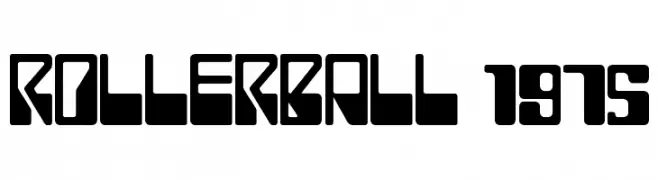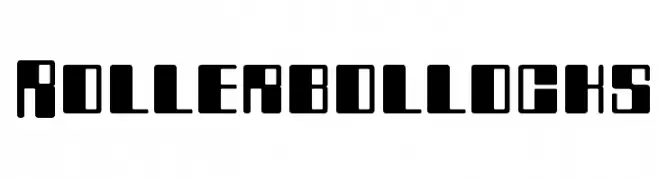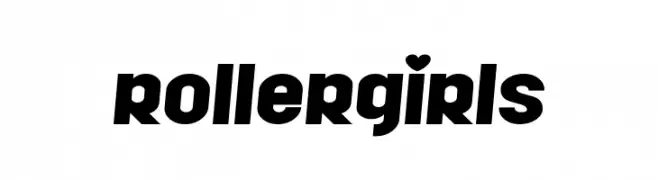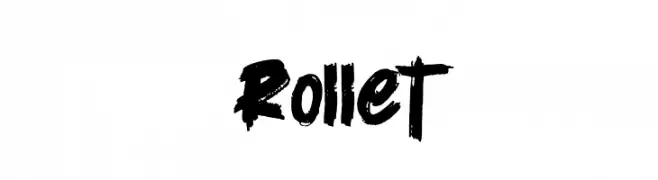
A bold, geometric font with a futuristic and modern design.
A modern, elegant script font with flowing, cursive characters.
A bold, angular font with a vintage yet modern appeal.
A bold, modern font with rounded, condensed characters and a playful style.
A modern, geometric font with sleek, continuous lines and a minimalistic style.
A bold, hand-painted style font with thick, uneven strokes and a dynamic feel.
A bold, expressive brush-style font with textured, hand-painted strokes.
A dynamic and expressive script font with fluid, cursive strokes.
A dynamic, flowing script font with elegant, cursive letterforms and a brush-like texture.